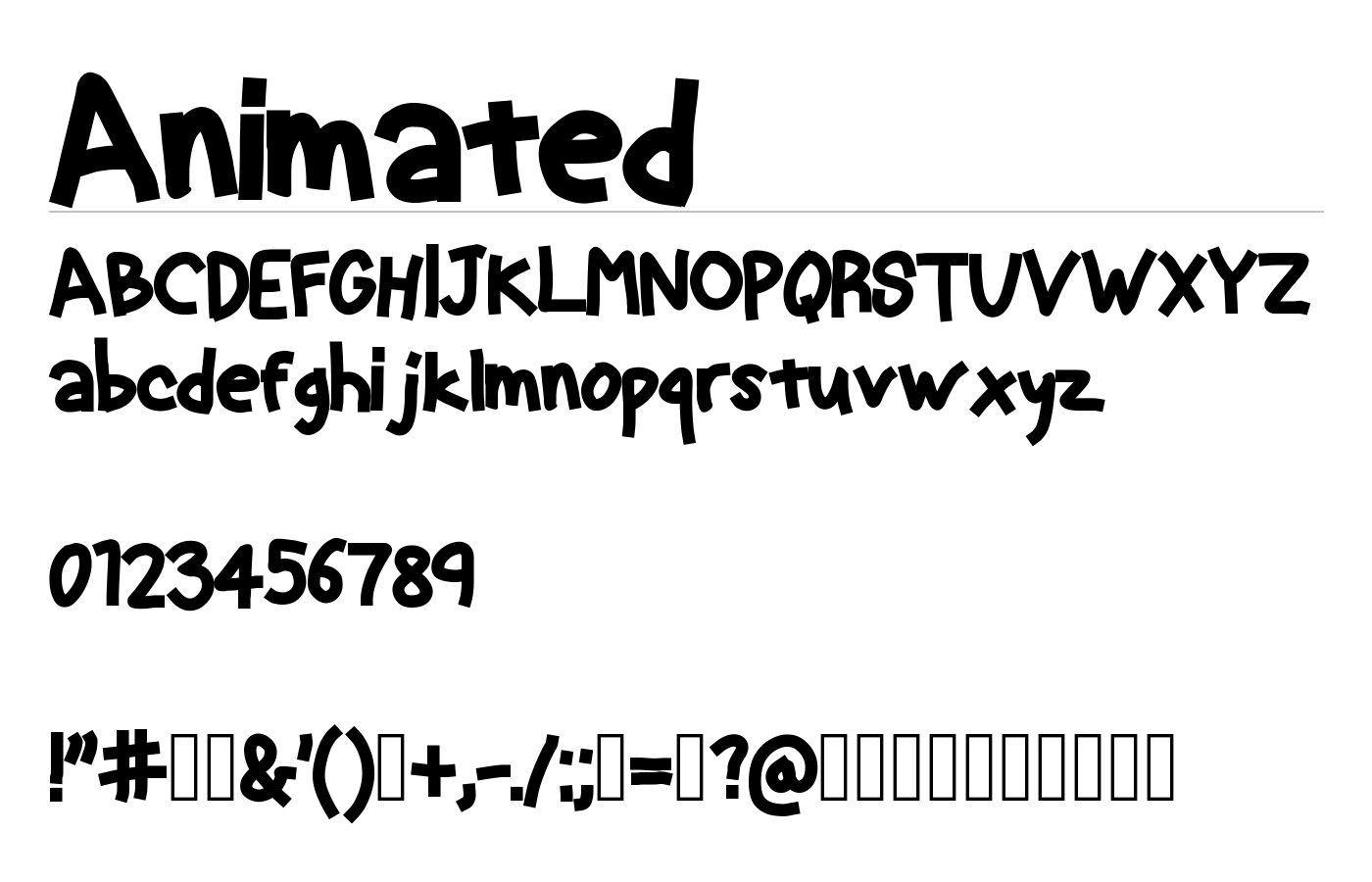
Animated Font is a playful, bold sans-serif typeface with uneven, hand-drawn strokes that give it a lively and informal feel. Its slightly irregular letterforms and moderate x-height make it perfect for fun, casual designs like children’s books, posters, and playful branding where a sense of creativity and energy is desired. This font works well in headlines and display uses, adding a cheerful and approachable personality to any project.
Animated Font
About Animated Font